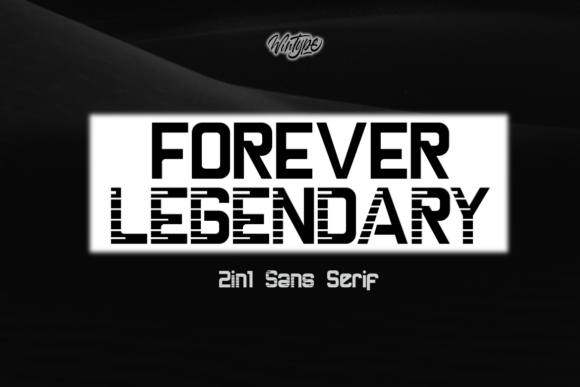
Dive into the realm of sophisticated typography with Forever Legendary, a display font that exudes boldness and innovation. Crafted by the visionary minds at WinType, this font is a masterpiece designed to elevate your creative expressions to new heights. Immerse yourself in a world of endless possibilities, where your designs transcend the ordinary and embrace the extraordinary.
With its commanding presence and futuristic allure, Forever Legendary is a perfect choice for fashion enthusiasts, bloggers, and designers seeking to make a lasting impression. Witness the transformation as your web designs, business cards, posters, and social media graphics burst into life with a touch of contemporary brilliance. This font possesses an inherent understanding of the fashion world's pulse, effortlessly capturing the essence of style and glamour.
Embark on a journey through the fashion capitals of the world, where Forever Legendary effortlessly blends with the rhythm of the streets and the pulse of the runways. Its bold strokes and clean lines pay homage to the iconic fashion statements that have shaped history, while its forward-thinking aura propels your designs into the future. Let your imagination run wild as you create visual masterpieces that ooze confidence and leave an unforgettable mark on your audience.
As you delve deeper into the world of Forever Legendary, you'll discover a font that effortlessly dances between strength and elegance. Its chiseled edges exude a sense of power and determination, while its refined curves add a touch of grace and sophistication. This duality makes it a versatile choice for a wide range of projects, from bold headlines that demand attention to delicate details that whisper elegance.
Unleash your creativity and let Forever Legendary guide you towards design triumphs. Its unwavering presence will command attention, while its timeless beauty will leave a lasting impression. Embrace the essence of fashion and innovation with this exceptional display font, and watch as your creations transform into captivating masterpieces that speak volumes.